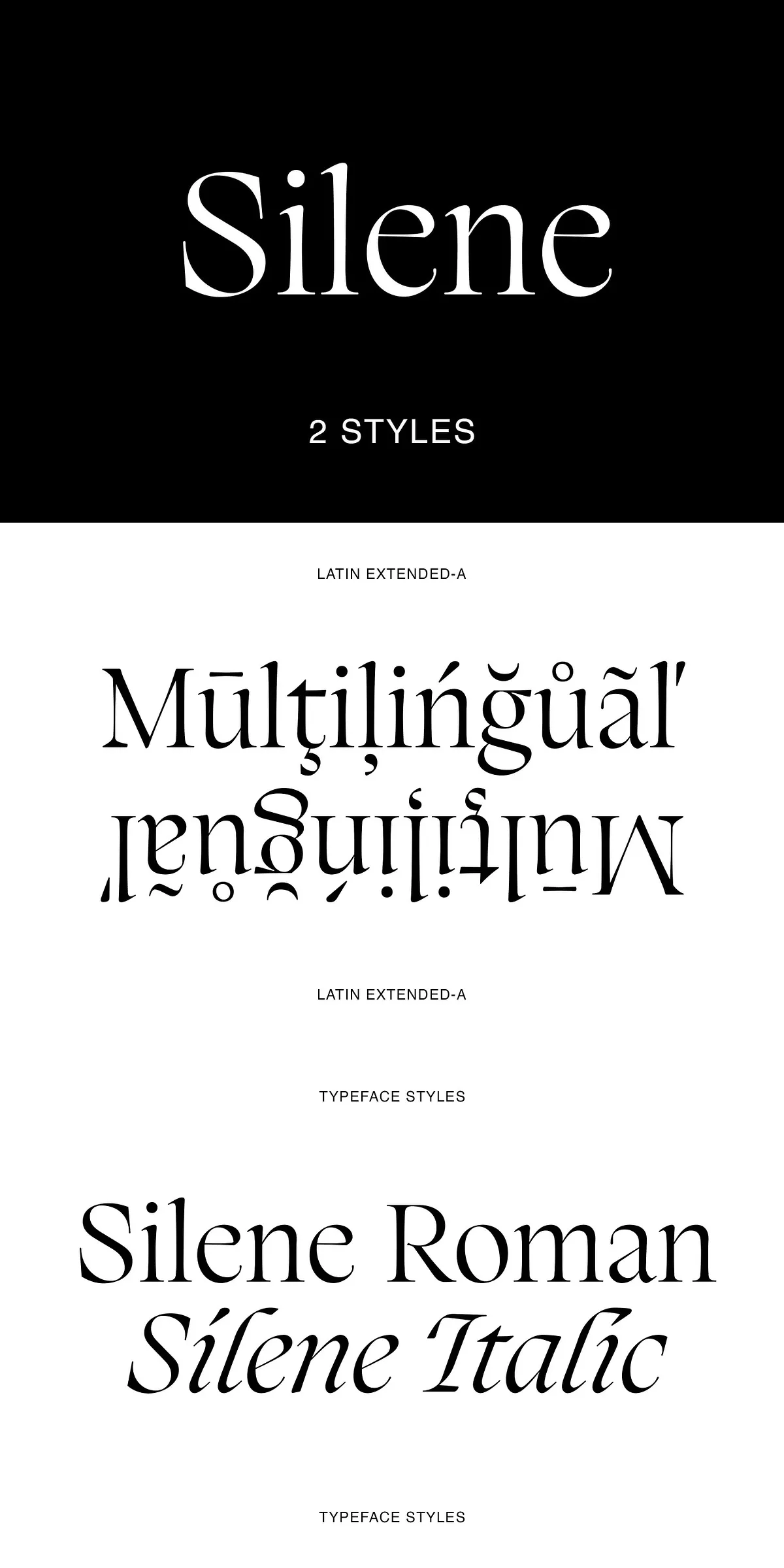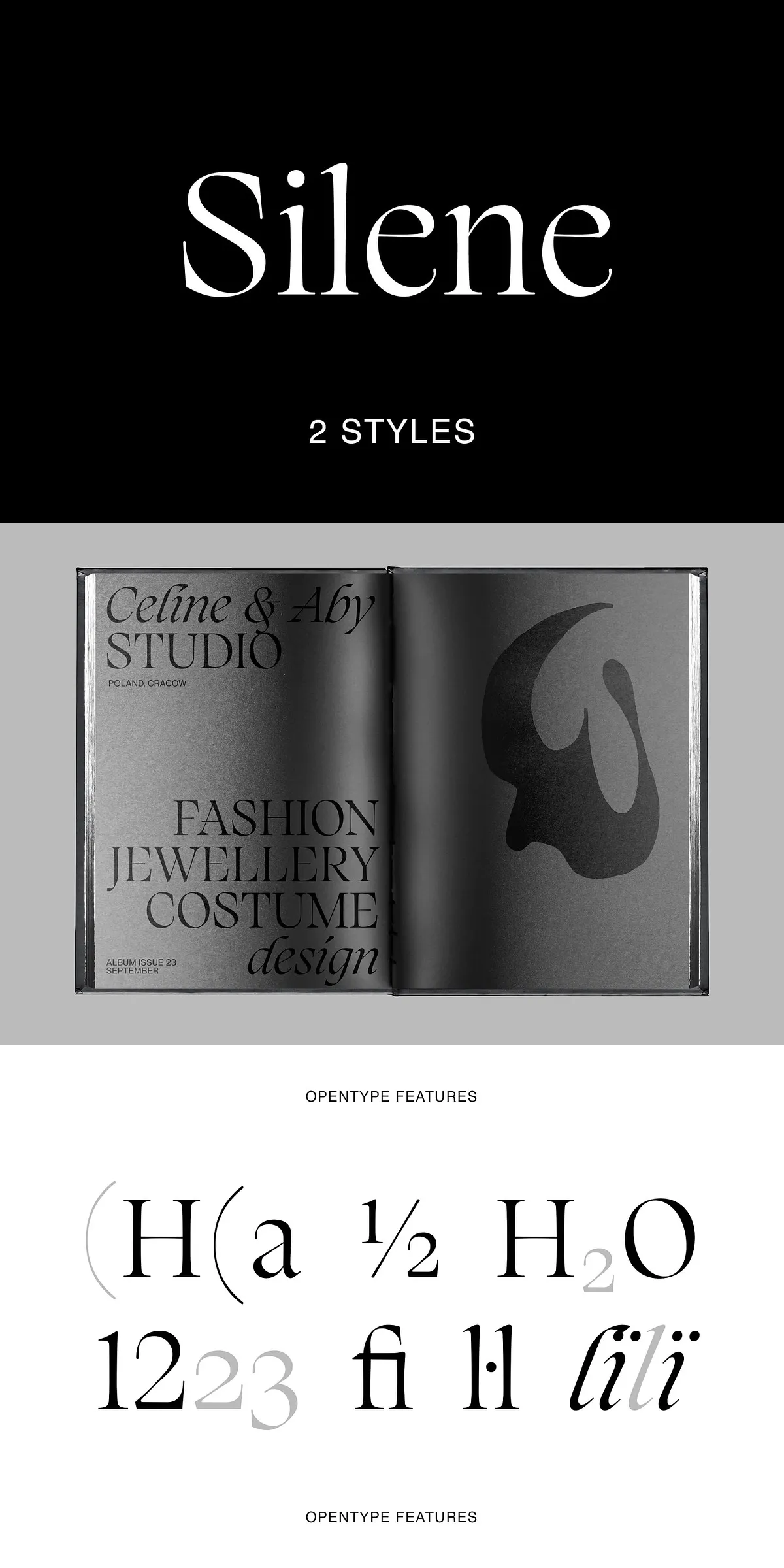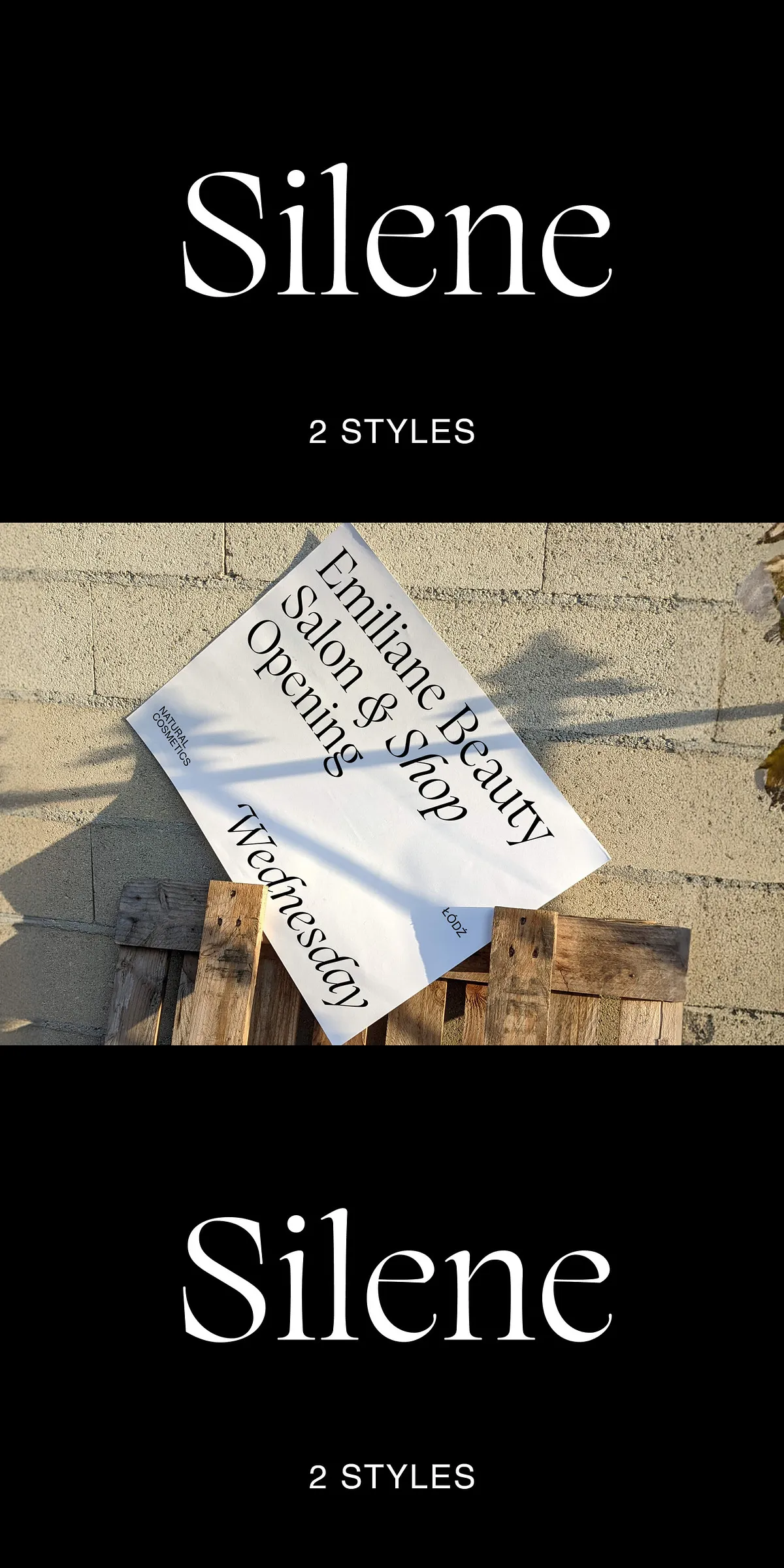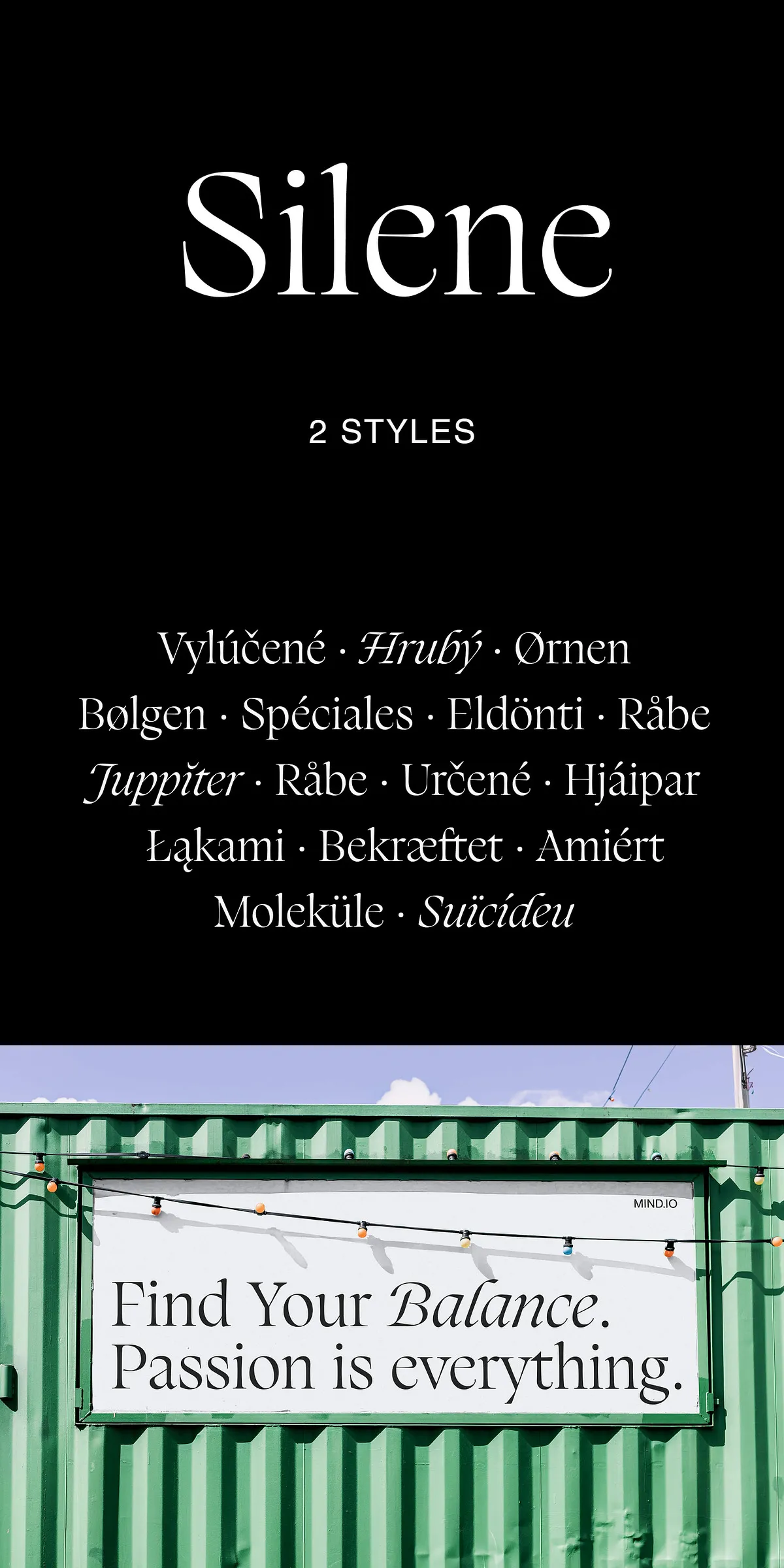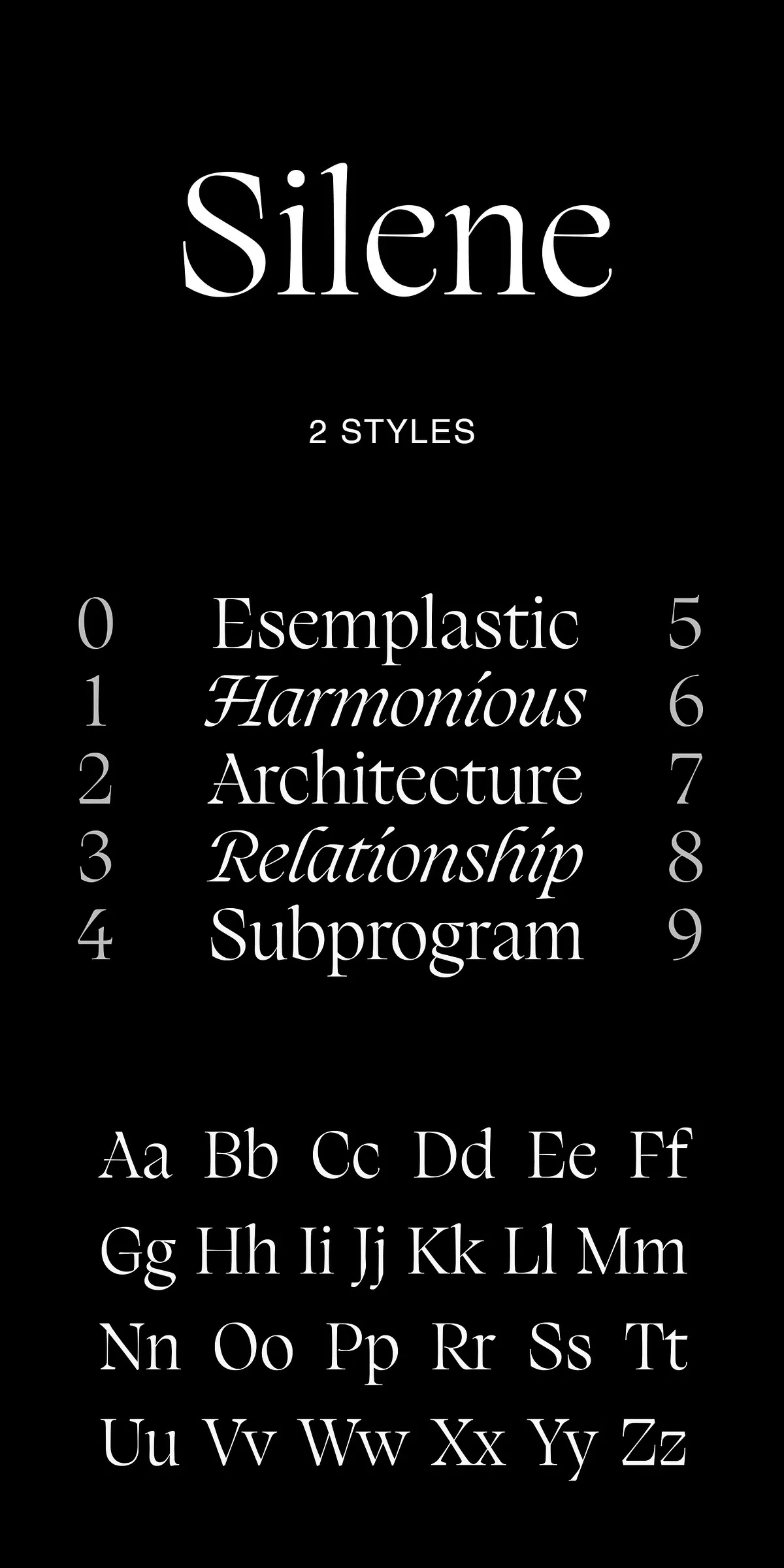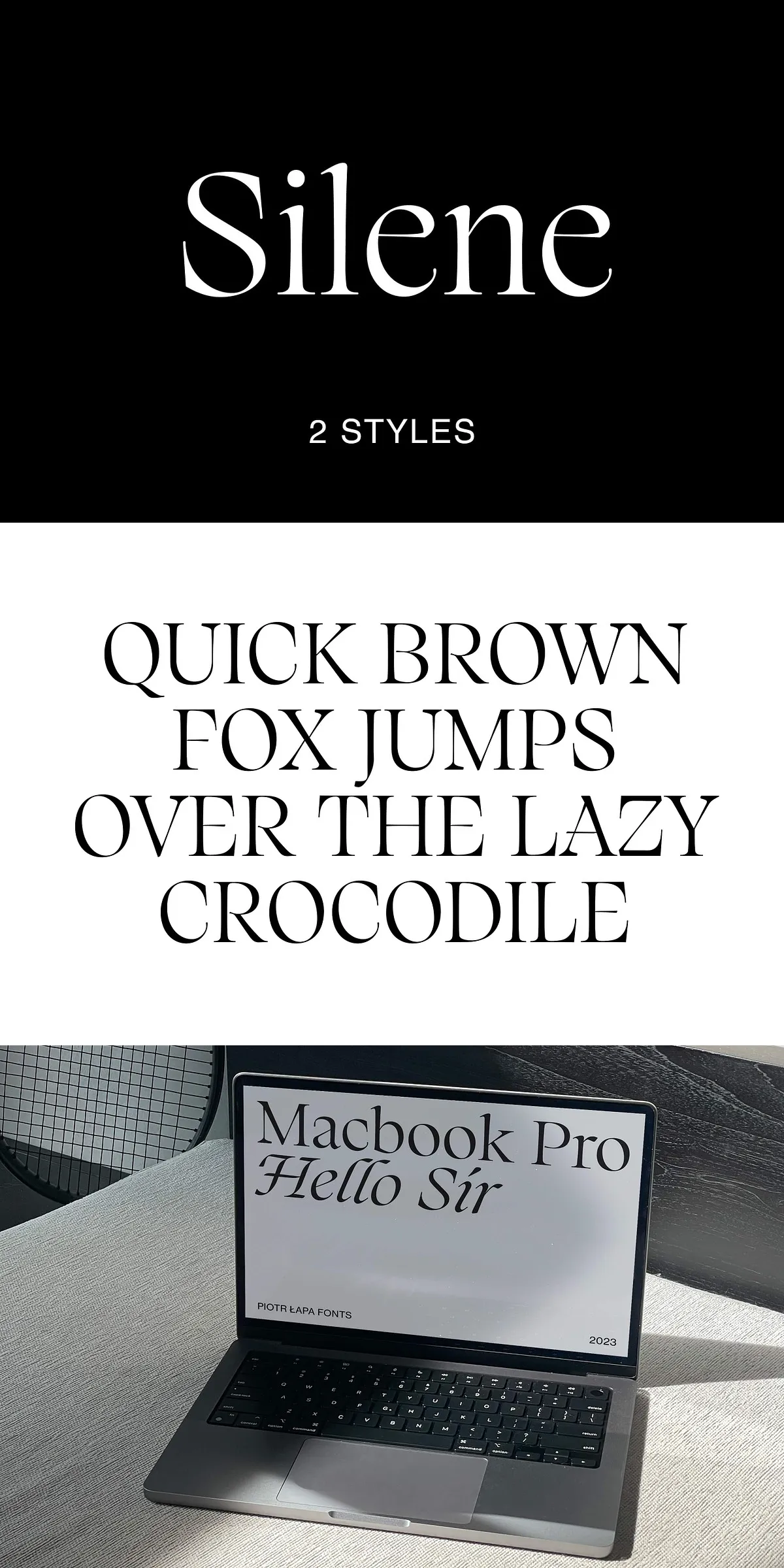
Uncover the delicate power of Silene — a refined, display serif typeface that brings the grace of early 20th century calligraphy into the digital age. Meticulously crafted for designers who value precision, personality, and visual poetry, Silene bridges vintage inspiration with modern typographic standards. It’s not just a font — it’s a statement of sophistication that speaks with quiet authority.
With itsquiet yet commanding x-height, sharp terminal details, and extreme stroke contrast, Silene commands attention without shouting. The letters flow with a distinct diagonal stress that adds rhythm and life to every line, giving your text an almost hand-drawn elegance. Whether used for a luxury fashion editorial, a high-end product cover, or a bold branding tagline, Silene elevates every word it touches.
Why Silene Is a Designer’s Dream: Core Strengths
Silene’s design isn’t just beautiful — it’s engineered for impact and versatility. Here’s what makes it stand out in a crowded font landscape:
- Two Distinct Styles: Masterfully paired Classic Roman and Dynamic Italic styles create a cohesive yet expressive duo, ideal for headers, captions, and signature typographic pairings.
- Extended Latin Support: Covers essential characters for Western European languages, including diacritics and special symbols — perfect for international design projects.
- 550+ Glyphs: The robust character set includes ligatures, alternate characters, small caps, and other typographic gems that give you creative freedom and depth.
- Advanced OpenType Features: Unlock contextual alternates, stylistic sets, and swash options to customize your layout with professional-level detail.
- Precise Kerning: Every letter pair has been harmonized for visual balance, avoiding awkward spacing even in tight compositions.
Designed for High-Impact Design Applications
Silene shines in scenarios where elegance, mood, and memorability are critical. It’s not a font for mundane tasks — it’s a tool for creating emotional resonance.
- Fashion & Lifestyle Branding: Define your brand’s identity with titles that suggest luxury, craftsmanship, and individuality.
- Poster & Exhibition Design: Create eye-catching visuals that stand the test of time, where each letter feels intentional and intentional.
- Product Packaging & Cover Design: Make your product pop on the shelf — Silene adds an instant sense of premium quality and artistic vision.
- Logotypes & Personal Signatures: Transform a brand’s name into a visual emblem of style and refinement.
- Editorial & Magazine Headlines: Replace generic text with type that tells a story before the first word is read.
Elevate Your Creative Vision with Silene
Choosing Silene isn’t about picking a font — it’s about choosing a design language. It speaks of heritage, intention, and quiet confidence. It’s for creatives who believe that typography isn’t just communication — it’s art.